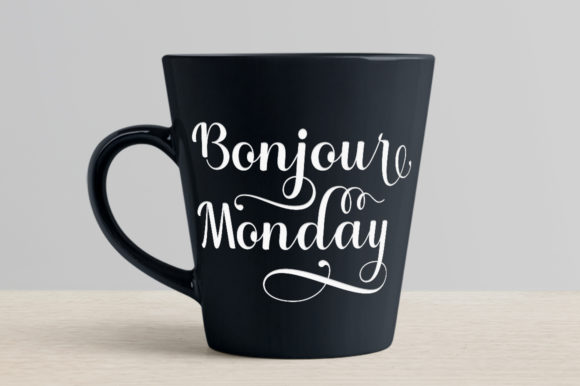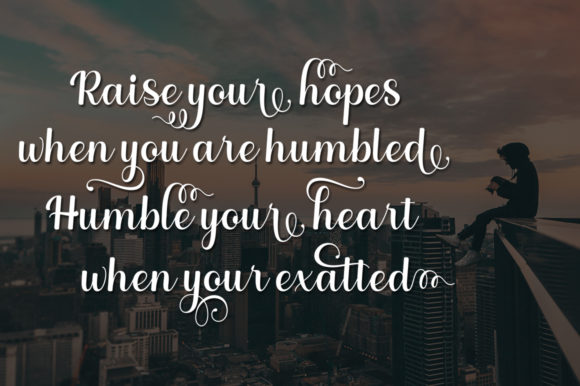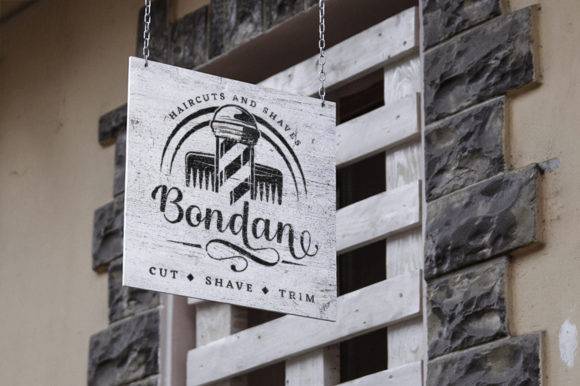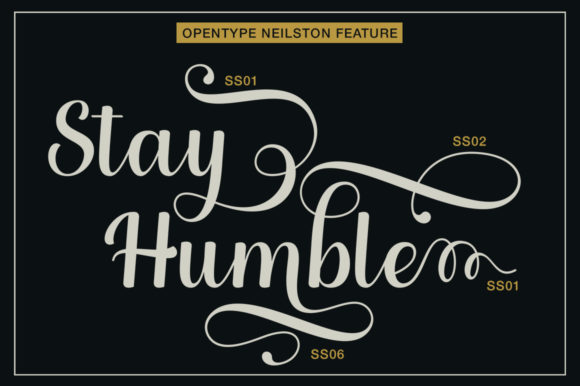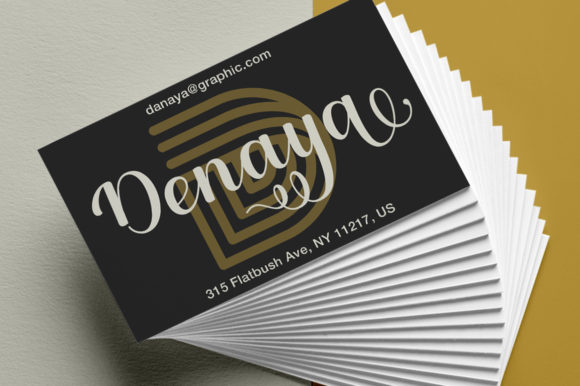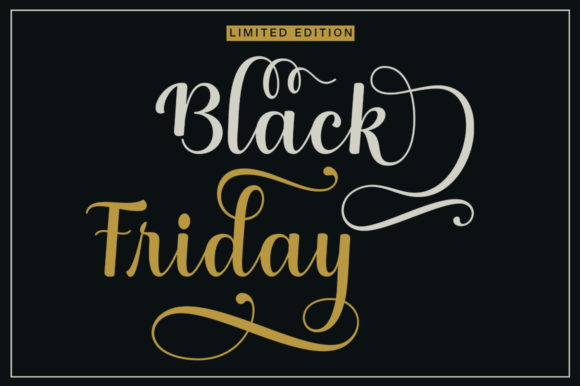
Introduction to Neilston Font
Have you ever been working on a creative project, pouring your heart and soul into every detail, only to find the perfect font to elevate your design and make it truly shine? For designers, that moment is pure magic. It’s the moment when everything comes together, and your vision is finally brought to life. For us, that moment came when we discovered the stunning Neilston Font.
With its bold, handwritten style, the Neilston Font is a game-changer for any design project. Whether you’re working on a high-quality logo, a free download for a client, or a creative campaign, this font is sure to add a touch of sophistication and character to your work. Its transparent background and high-quality design make it the perfect addition to any design resource.
Neilston Font Key Features
- Designed with a modern and elegant aesthetic, perfect for a wide range of creative projects, including logos, branding, and typography-based art.
- Available in a single weight, ideal for projects where a clean and simple font is required.
Honest Review: Neilston Font
I recently had the chance to experiment with the Neilston Font, and I’m excited to share my thoughts on this design resource. As a designer, I’m always on the lookout for high-quality fonts that can elevate my creative projects. Neilston Font definitely delivers.
What works well: ✨ The font’s unique, modern design makes it perfect for a wide range of creative projects, from branding and logos to digital interfaces and marketing materials. The transparent background is also a nice touch, allowing for seamless integration with any design element.
Here are some of the features that caught my attention:
- High-quality design that’s perfect for modern creative projects
- Available in a variety of font styles and weights
Limitations: ⚠️ While the Neilston Font is a great addition to any designer’s toolkit, I did find it to be a bit limited in terms of its versatility. The font’s modern design may not be suitable for more traditional or classic projects.
Overall, I’m really impressed with the Neilston Font. It’s a great resource for designers who want to add a touch of modernity to their creative projects. With its high-quality design and transparent background, it’s definitely worth checking out.
Neilston Font
Tips for Getting the Most Out of Neilston Font
Here are a few tips for getting the most out of the Neilston Font:
- Use the font in combination with other design elements to create a unique and eye-catching design.
- Experiment with different font sizes and colors to create a visually appealing design.
Common Use Cases for Neilston Font
The Neilston Font is perfect for a wide range of creative projects, including: